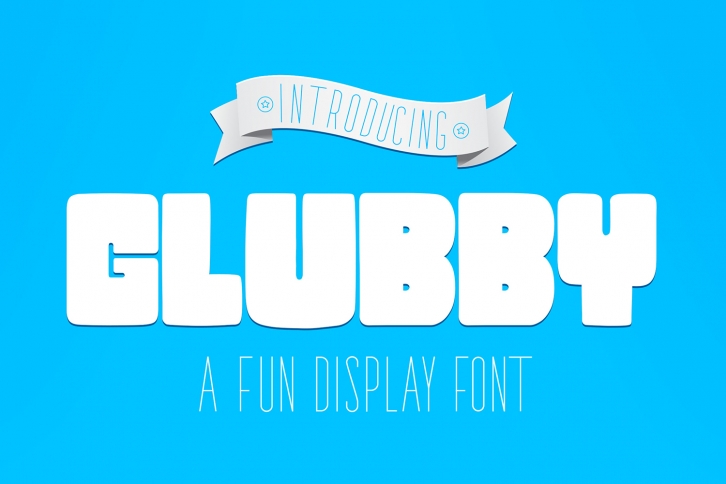
Glubby is a trendy and unique font with an authentic style. It was designed by Corgi Astronaut and it's a great choice for creative people who need such a font. It was released on April 9, 2017 and the file size is 12.53 MB. Glubby will add an organic vibe to any design idea!